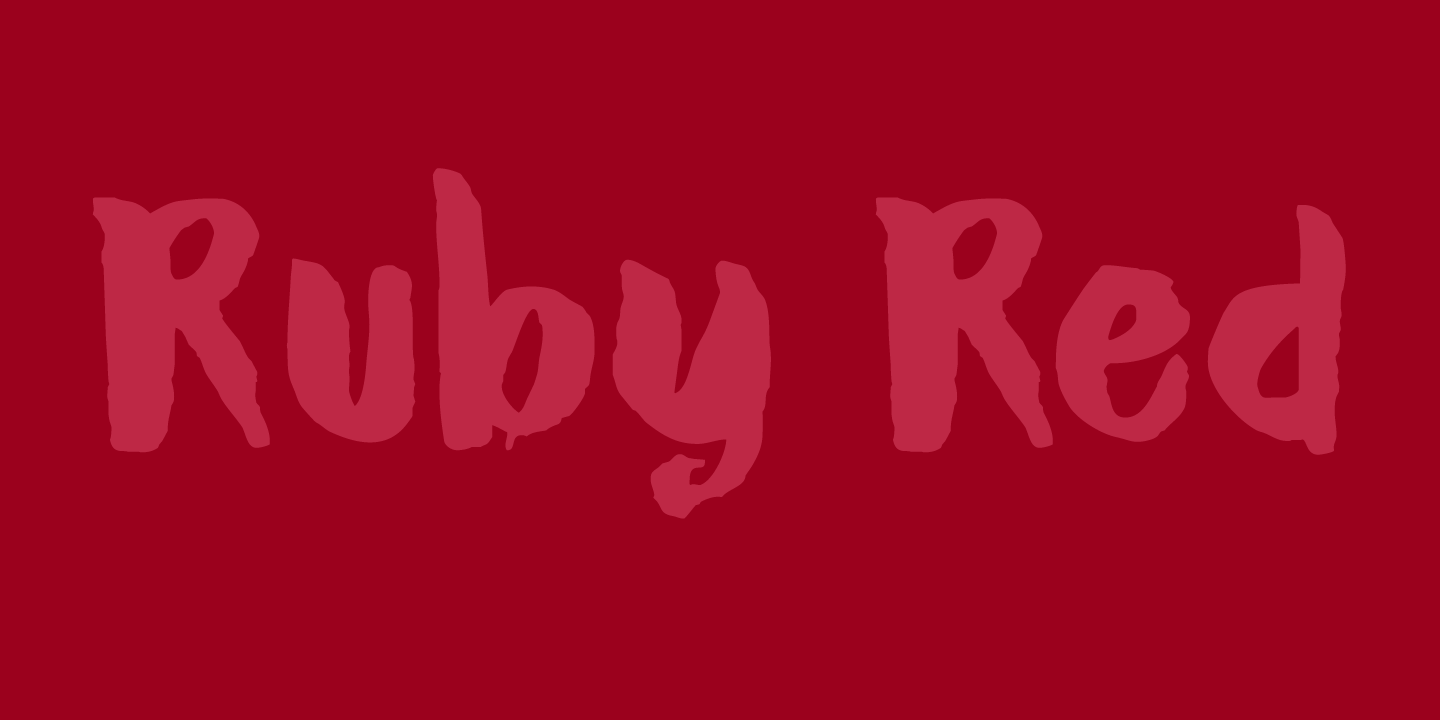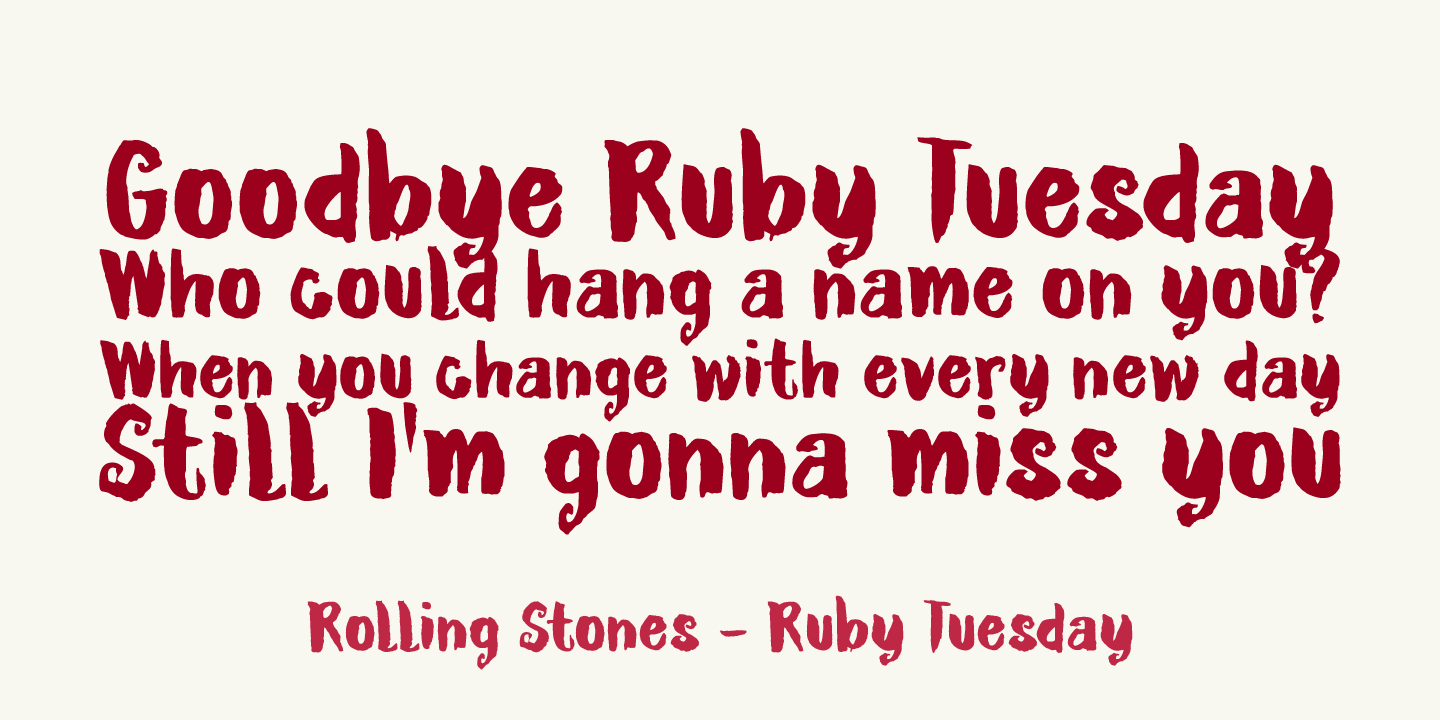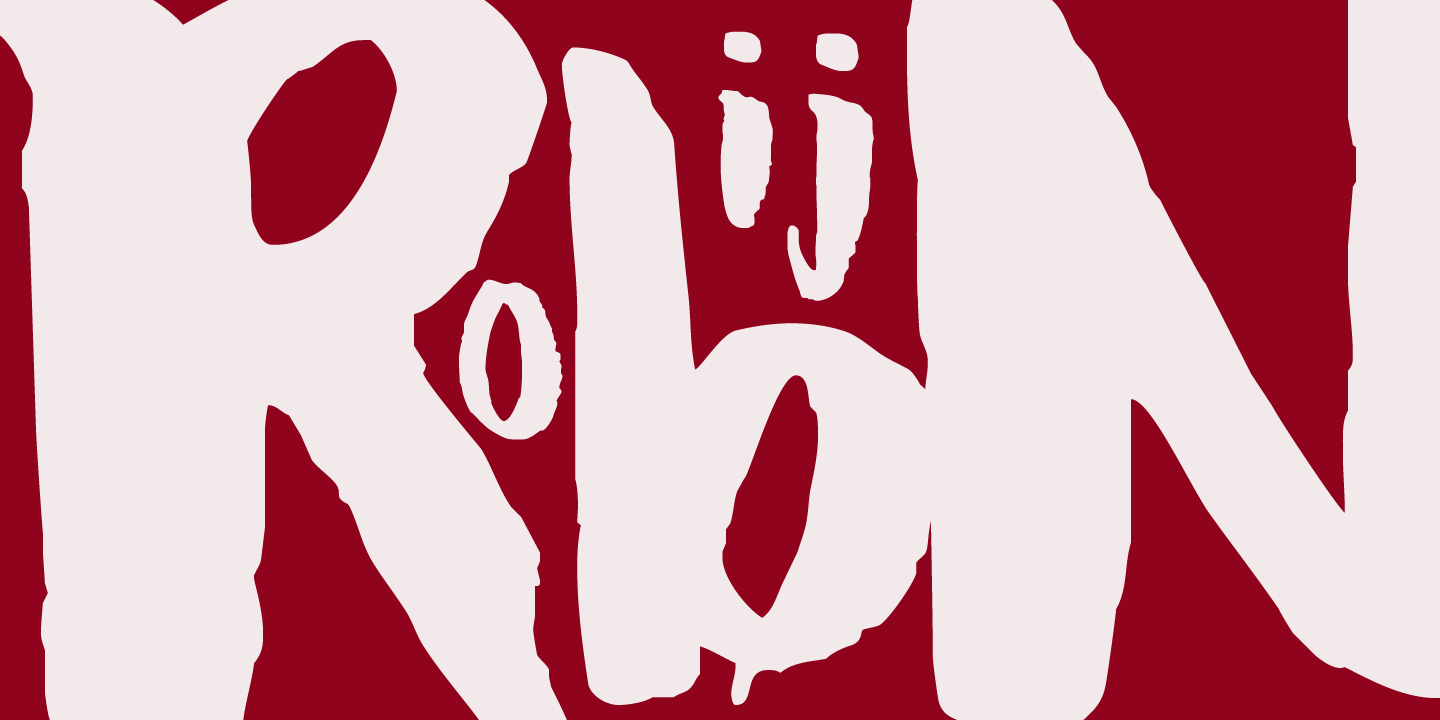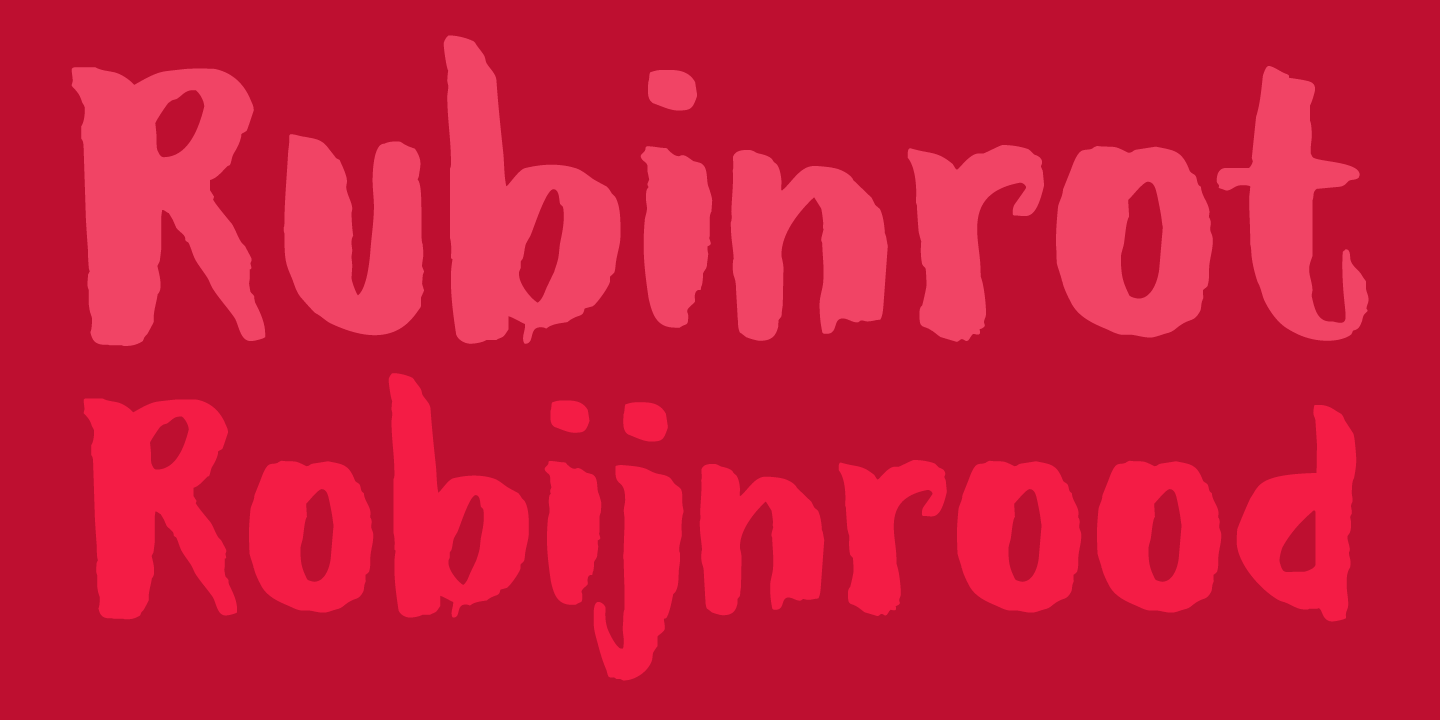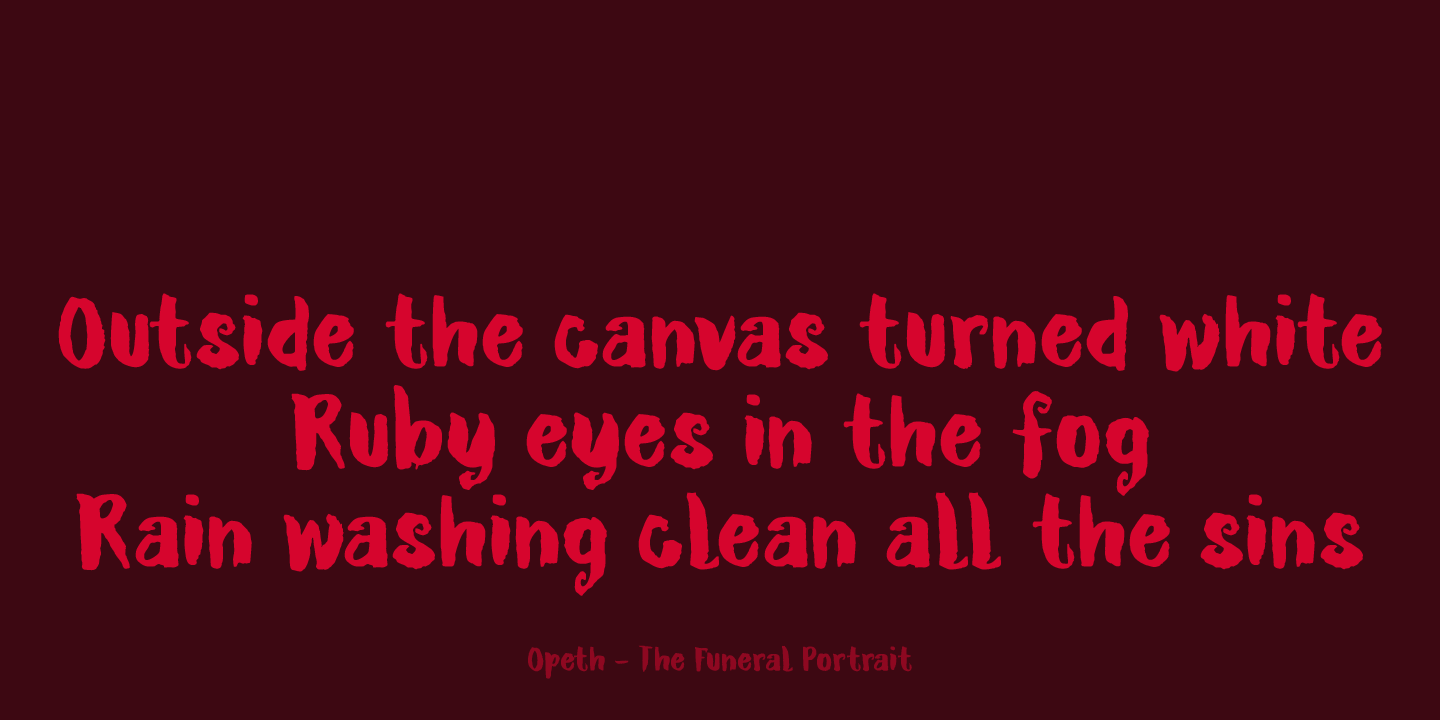
Ruby Red
Ruby Red is a playful font, made with ink and a brush. Ruby Red would look great in ads and packaging. Comes with a treasure trove of diacritics.